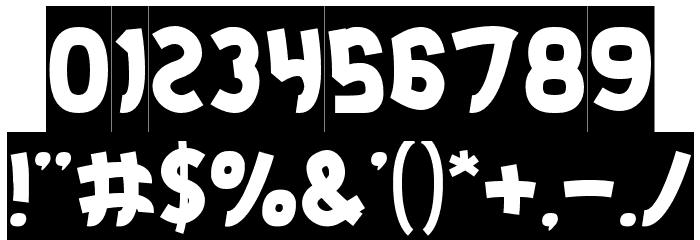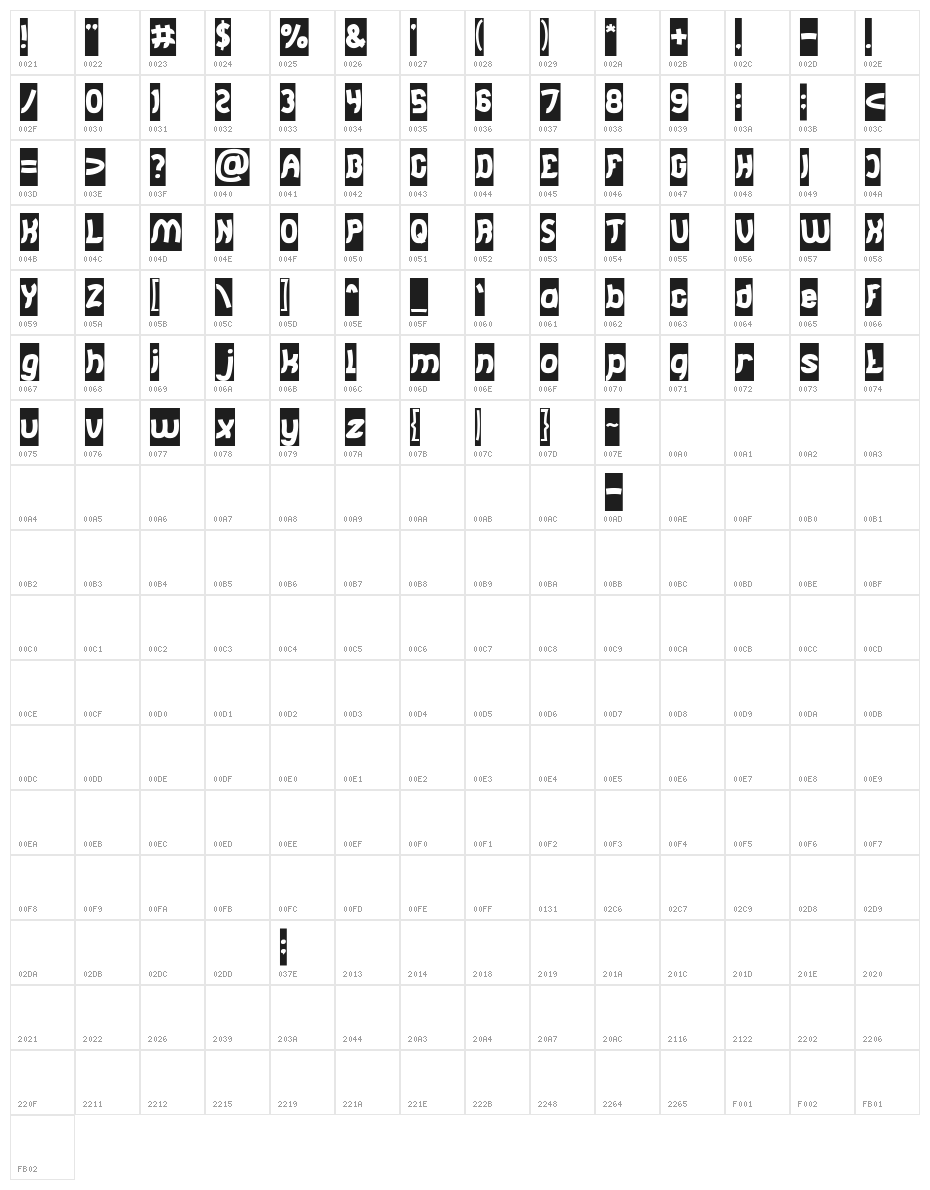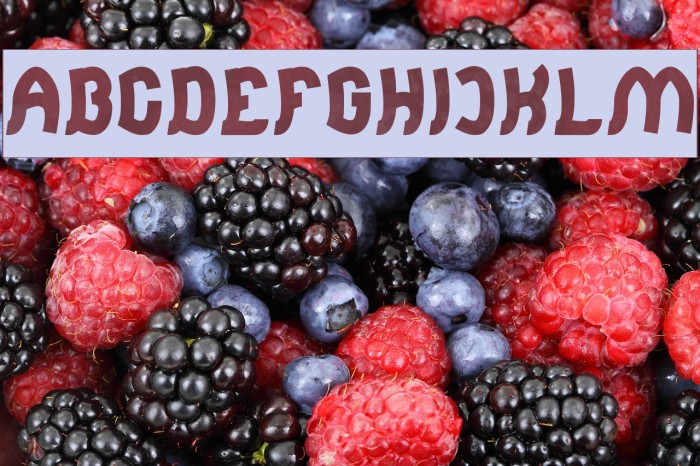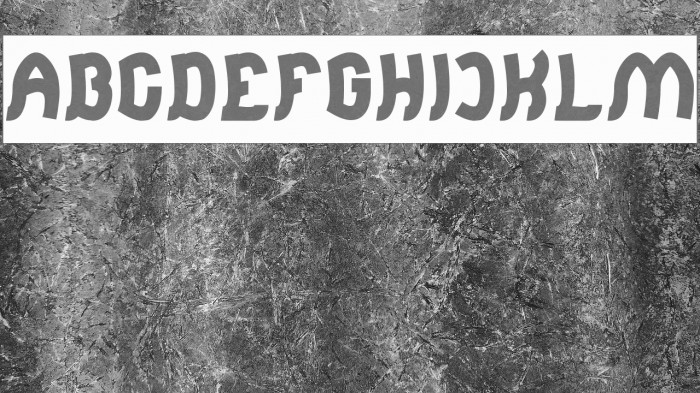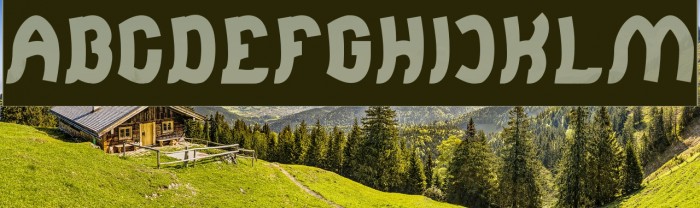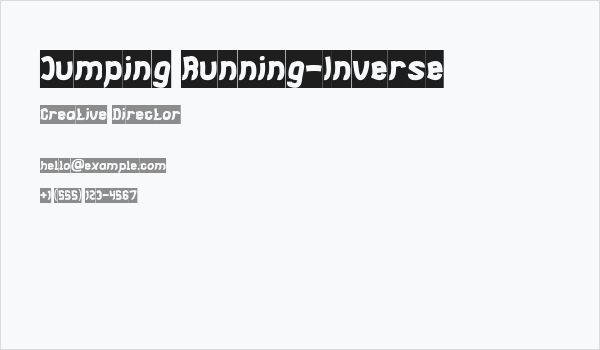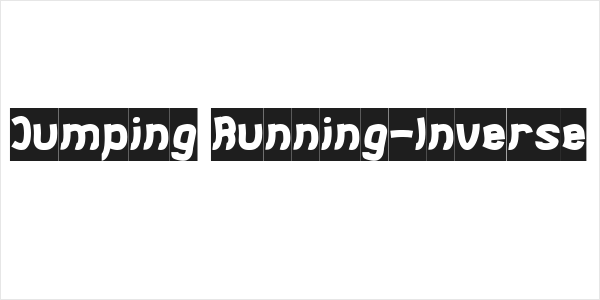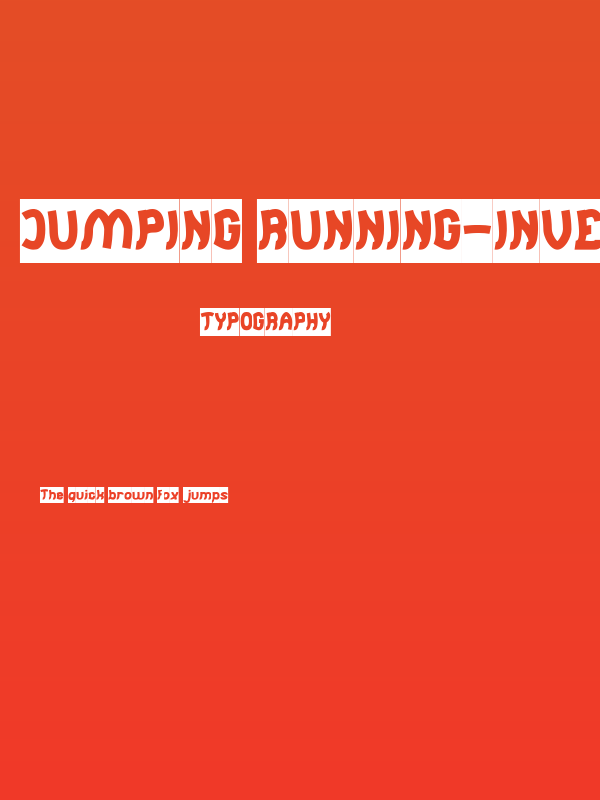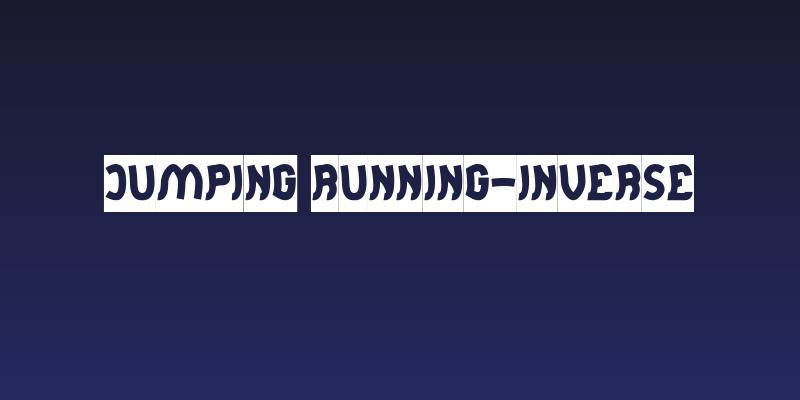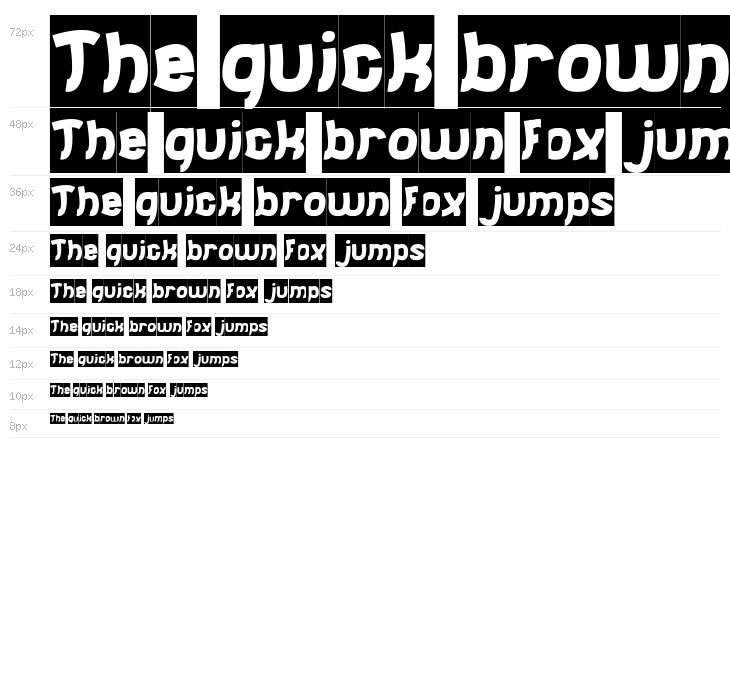
Jumping Running-Inverse Font
Jumping Running-Inverse Description
This playful and dynamic font features a bold and energetic style, with each character appearing to be in motion. The letters have a whimsical, bouncy quality, with exaggerated curves and varying stroke widths that give them a lively and animated appearance. The uppercase and lowercase letters maintain a consistent style, while the numbers and special characters complement the overall design. The font's unique character shapes make it ideal for projects that require a fun and engaging visual impact.
Overall StylePlayful, Energetic, Fun
Proposed ProjectsIdeal for children's books, playful branding, event posters, and creative advertising campaigns.